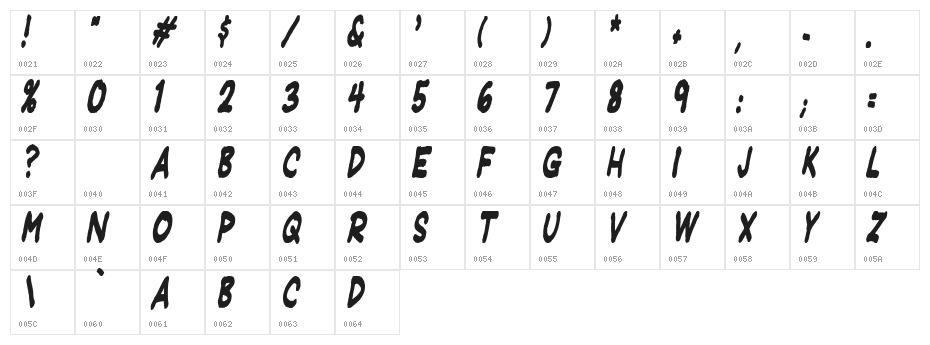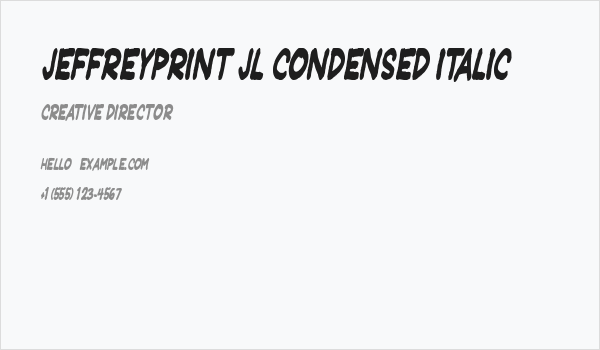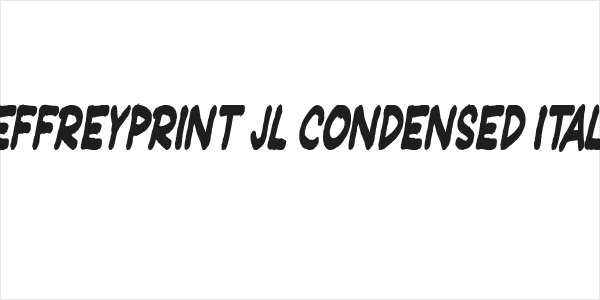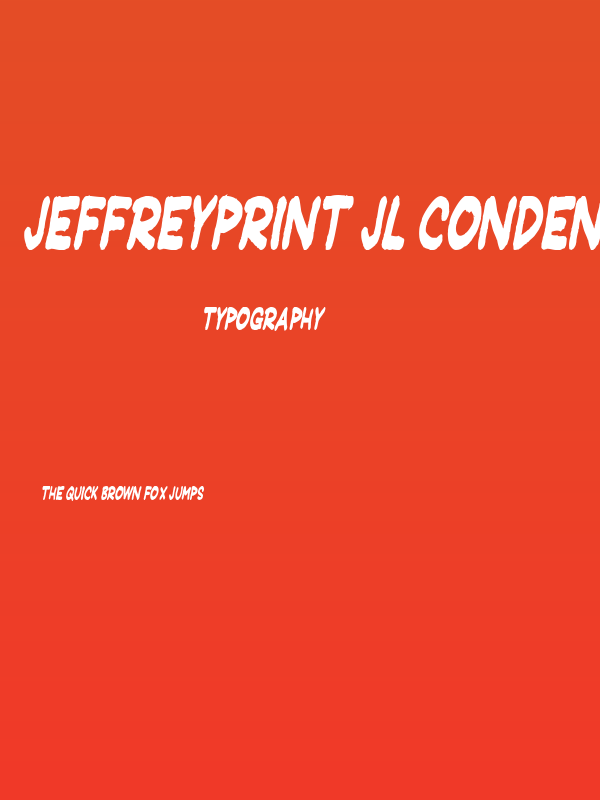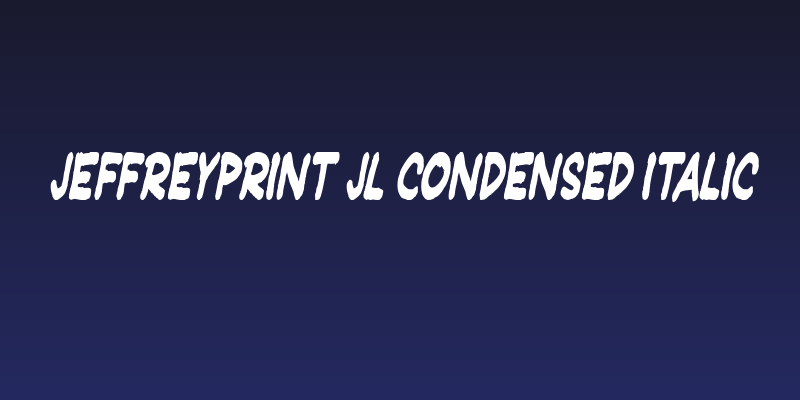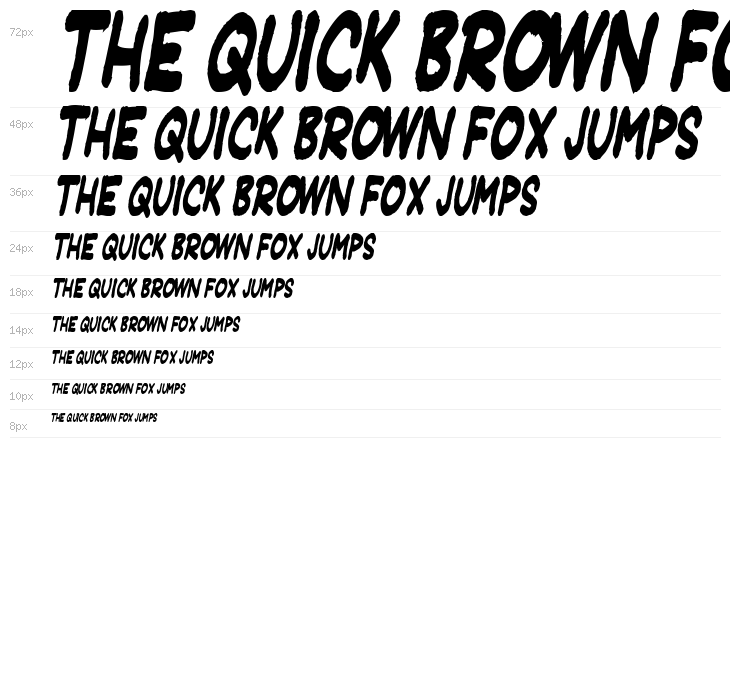
JeffreyPrint JL Condensed Italic Font
JeffreyPrint JL Condensed Italic Description
This font features a bold, condensed style with a distinct italic slant, giving it a dynamic and energetic appearance. The characters are thick and rounded, providing a strong visual impact. The uppercase and lowercase letters maintain a consistent style, with smooth curves and a slightly playful feel. The numbers and special characters are equally bold, ensuring readability and uniformity across all elements. This font's condensed nature makes it suitable for space-saving applications while still maintaining legibility.
| Proposed Projects | Ideal for posters, headlines, branding materials, and any design requiring a bold statement. |